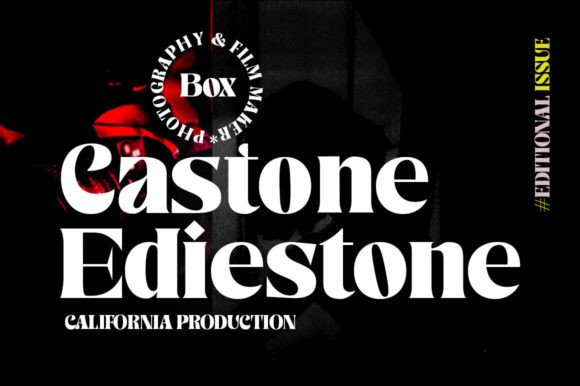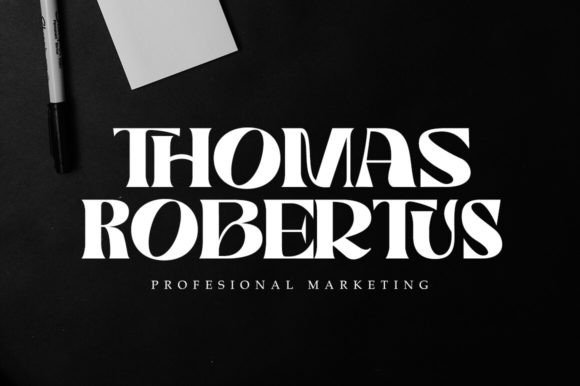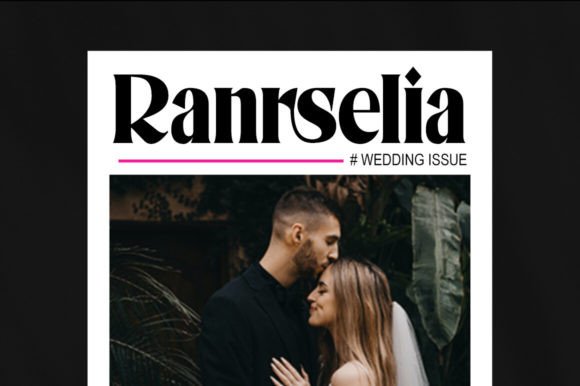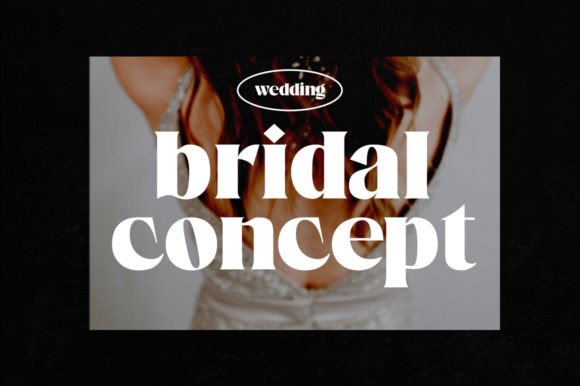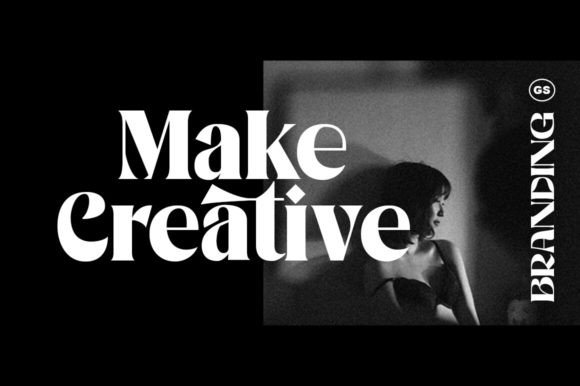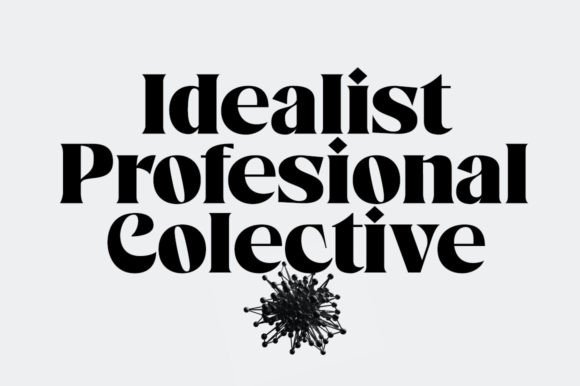
Brefid Font: Elevate Your Designs with Luxurious Elegance
In the world of typography, fonts play a crucial role in conveying the tone and personality of a design. For designers and crafters seeking to add a touch of luxury and elegance to their work, the Brefid Font is an excellent choice. This stunning display font boasts characters that perfectly capture today’s styles, making it an ideal selection for creating classy and sophisticated designs.
The Essence of Brefid Font
Brefid is a luxurious yet elegant display font, carefully crafted to meet the demands of modern design. Its characters are designed to exude a sense of refinement and poise, making it perfect for projects that require a touch of sophistication. Whether you’re working on a branding project, a website, or a marketing material, Brefid Font is sure to elevate your design to new heights.
Key Features of Brefid Font
- Luxurious and Elegant: Brefid Font boasts a luxurious and elegant feel, perfect for designs that require a touch of sophistication.
- Modern Style: The font’s characters are designed to suit today’s styles, ensuring your designs look modern and fresh.
- Classy and Calm: Brefid Font maintains a calm and classy style, making it perfect for designs that require a sense of serenity and poise.
- Versatile: This display font can be used for a wide range of design projects, from branding and advertising to web design and crafting.
Why Choose Brefid Font?
With so many fonts available, why choose Brefid Font for your design projects? Here are just a few reasons:
- Unique and Distinctive: Brefid Font offers a unique and distinctive look that will set your designs apart from the crowd.
- High-Quality: The font is crafted with attention to detail, ensuring a high-quality finish that will impress your clients or audience.
- Easy to Read: Despite its elegant and luxurious feel, Brefid Font remains easy to read, making it perfect for designs that require a clear and concise message.
Using Brefid Font in Your Designs
So, how can you incorporate Brefid Font into your designs? Here are a few ideas to get you started:
- Branding and Logo Design: Use Brefid Font to create a luxurious and elegant brand identity that will leave a lasting impression.
- Website Design: Add a touch of sophistication to your website with Brefid Font, perfect for headings and titles.
- Marketing Materials: Use Brefid Font in your marketing materials, such as brochures, flyers, and business cards, to add a touch of elegance and refinement.
- Crafting and DIY Projects: Brefid Font is also perfect for crafting and DIY projects, such as making signs, banners, and other decorative items.
In conclusion, Brefid Font is a luxurious and elegant display font that is perfect for designers and crafters seeking to add a touch of sophistication to their work. With its modern style, classy feel, and versatility, Brefid Font is an excellent choice for a wide range of design projects. Whether you’re working on a branding project, a website, or a crafting project, Brefid Font is sure to elevate your design to new heights.